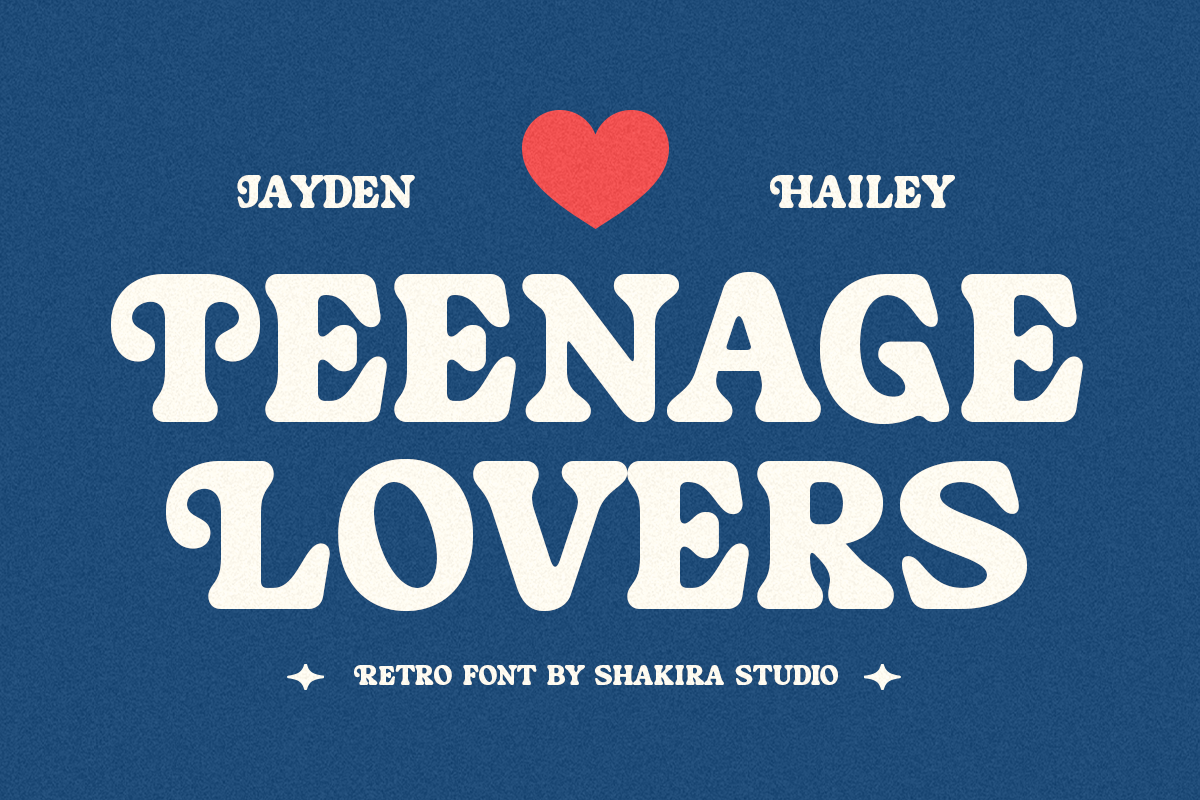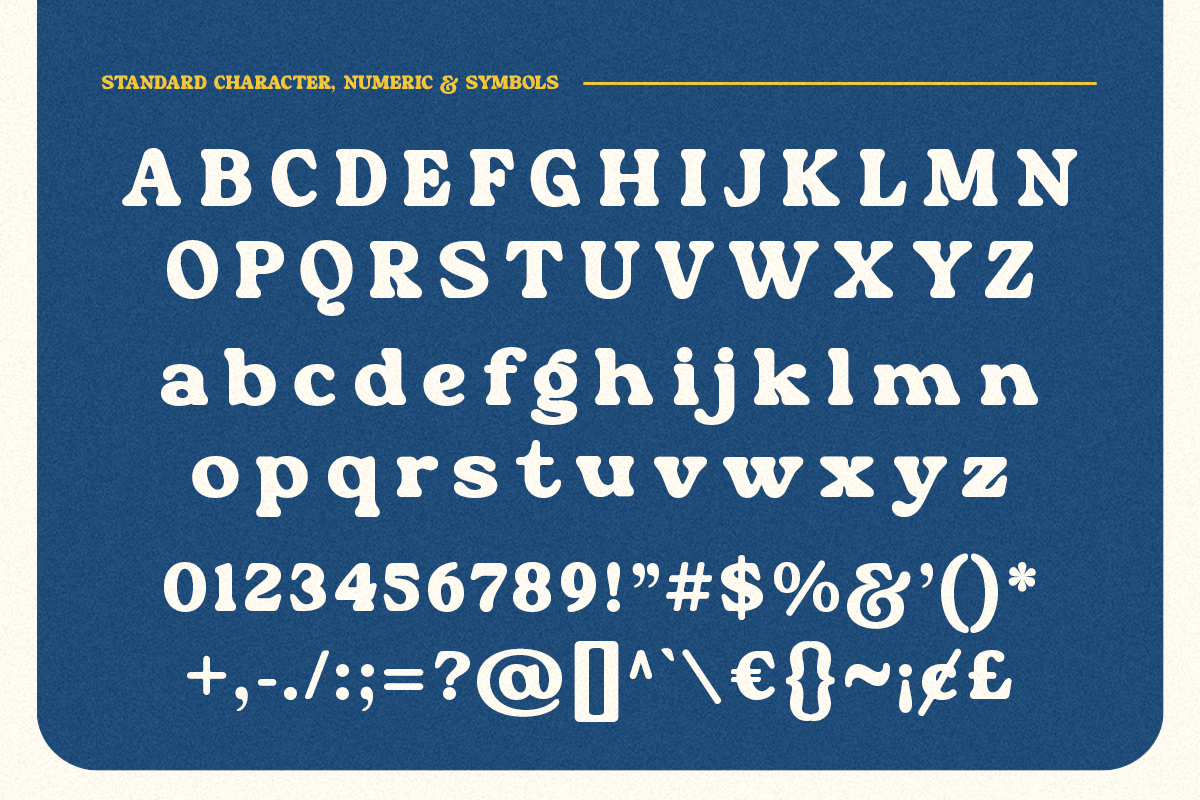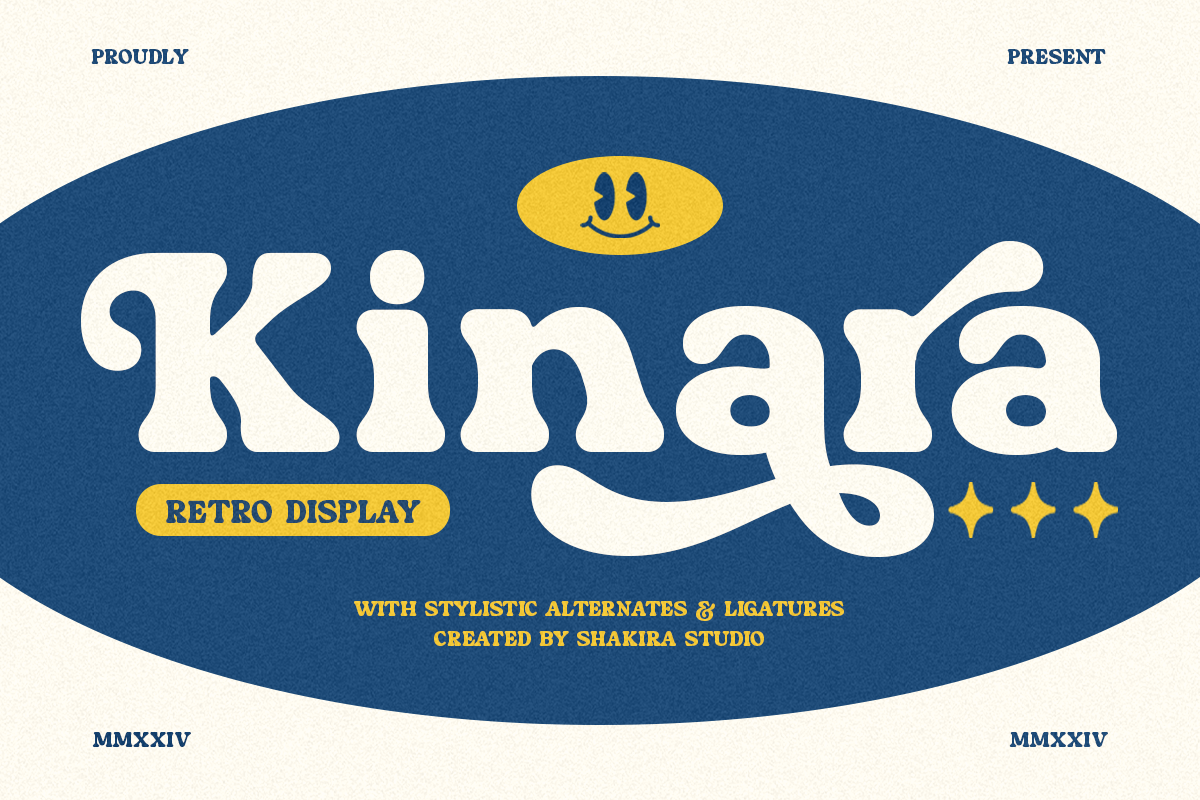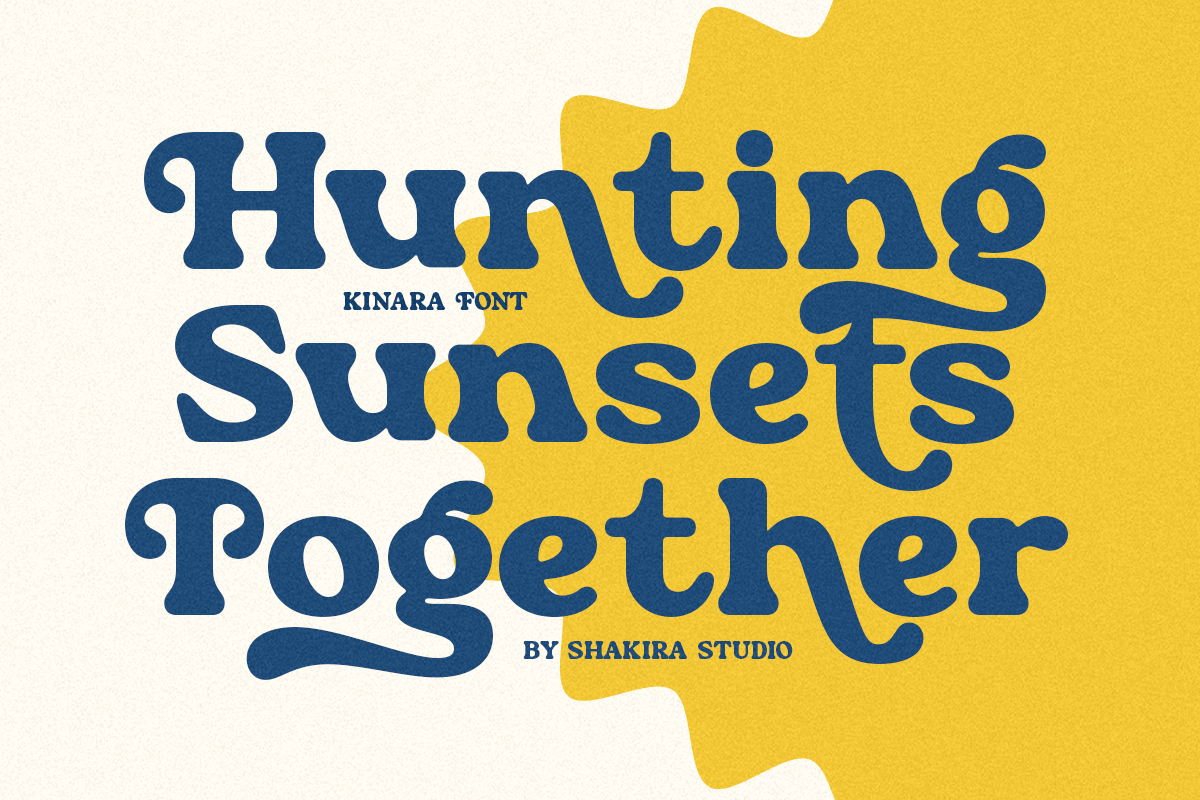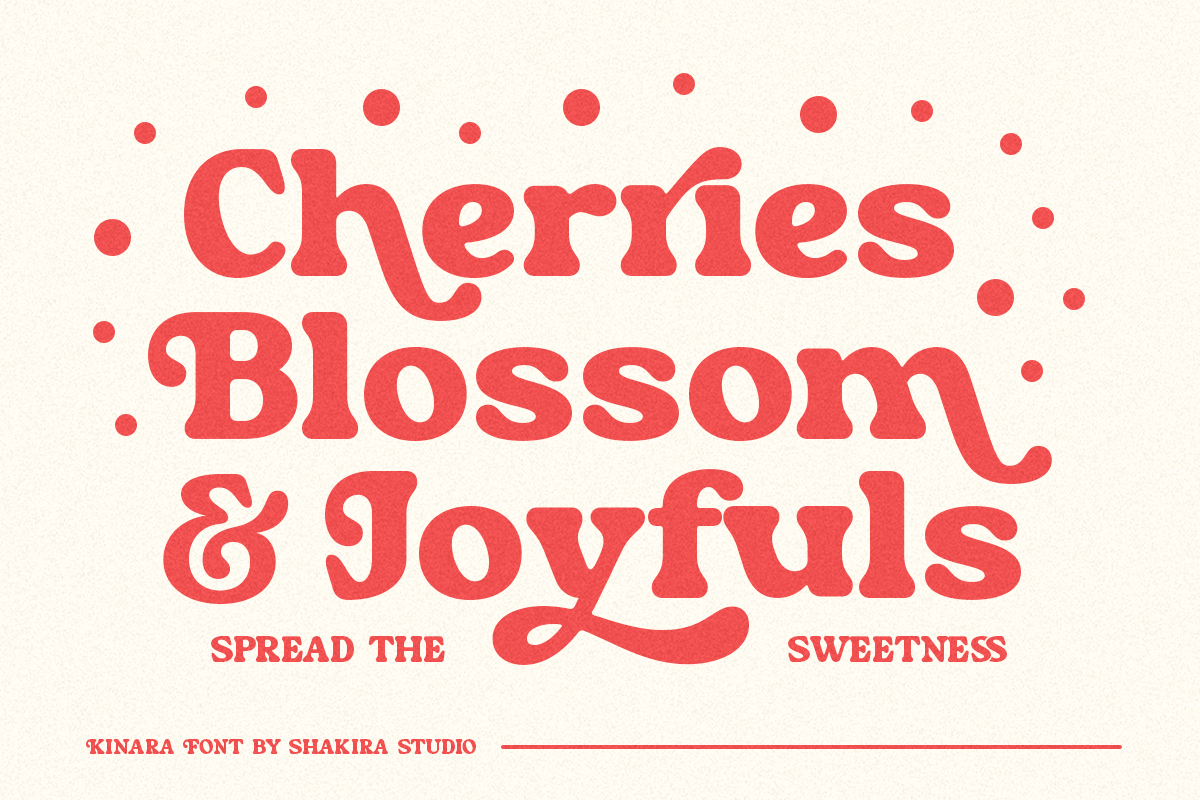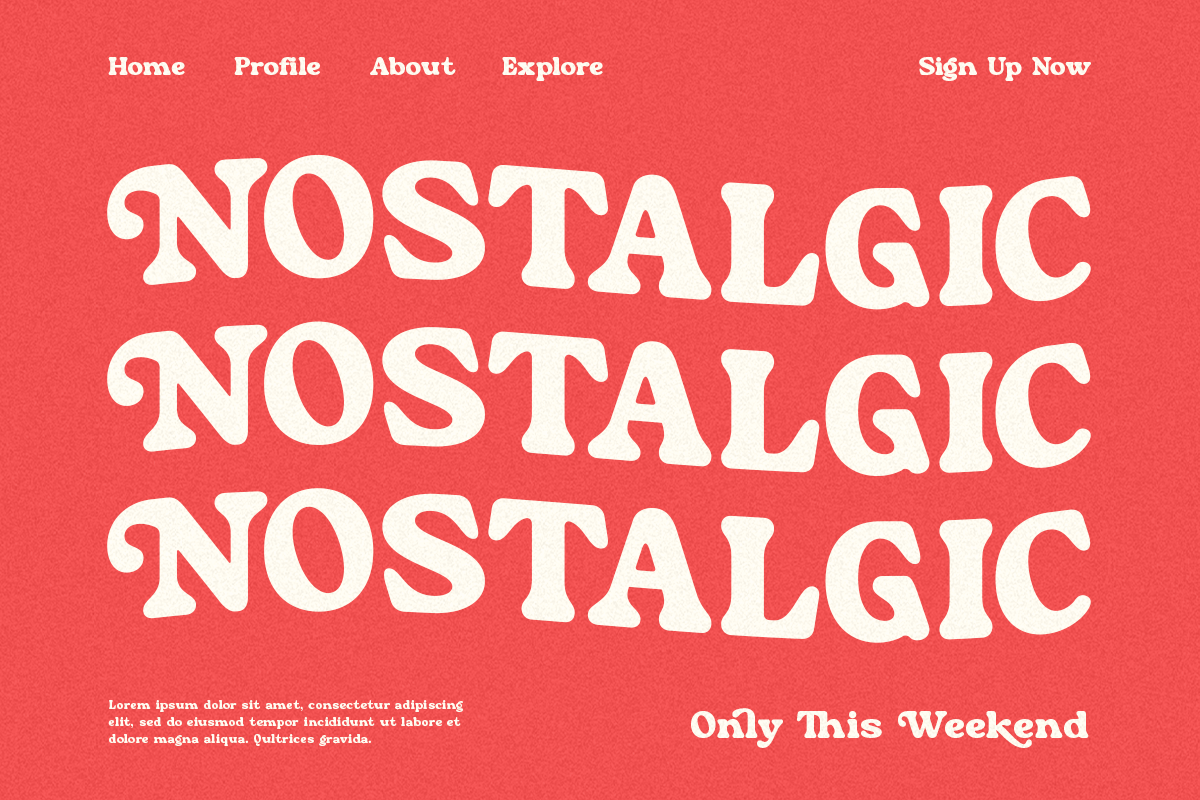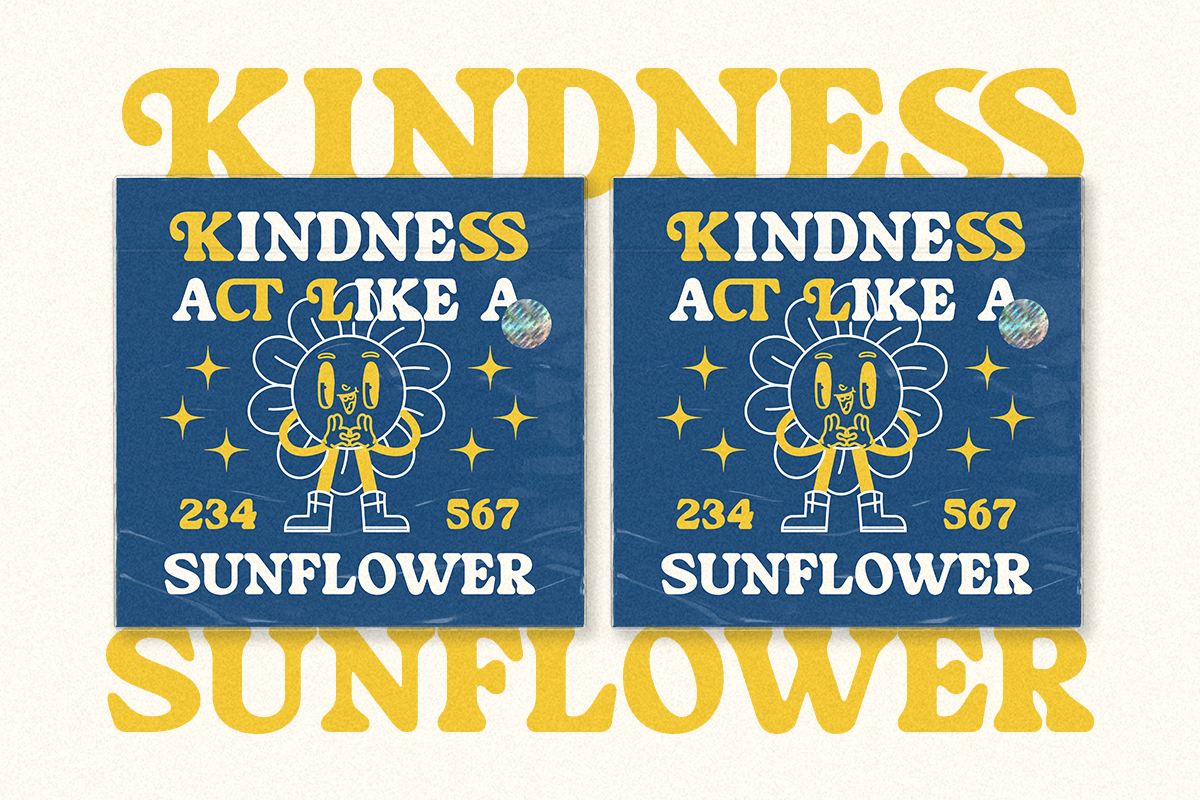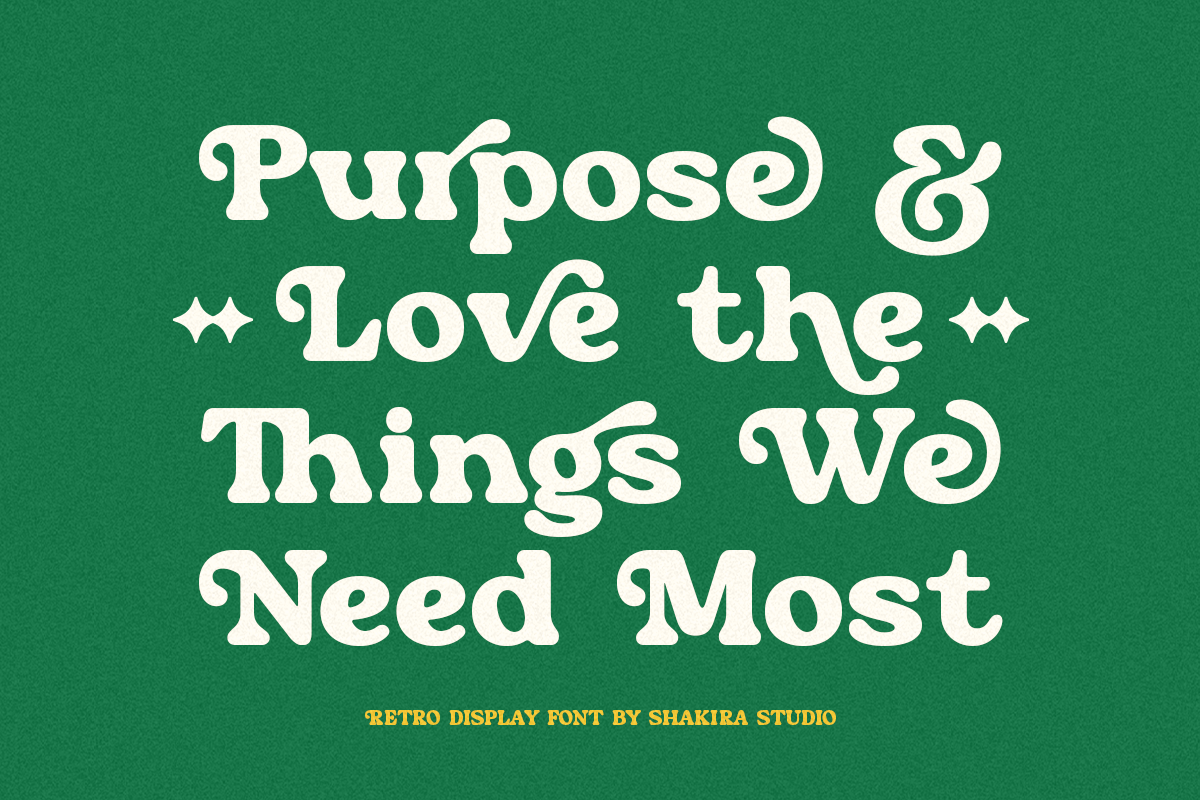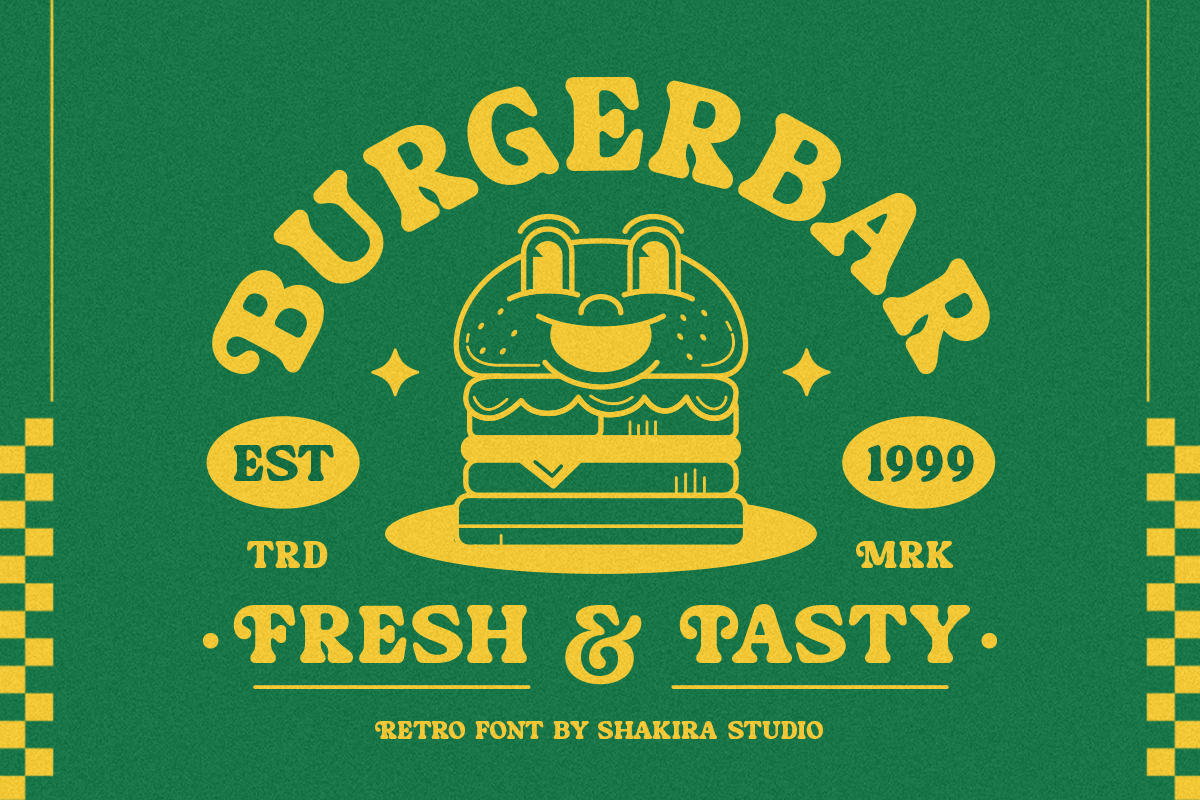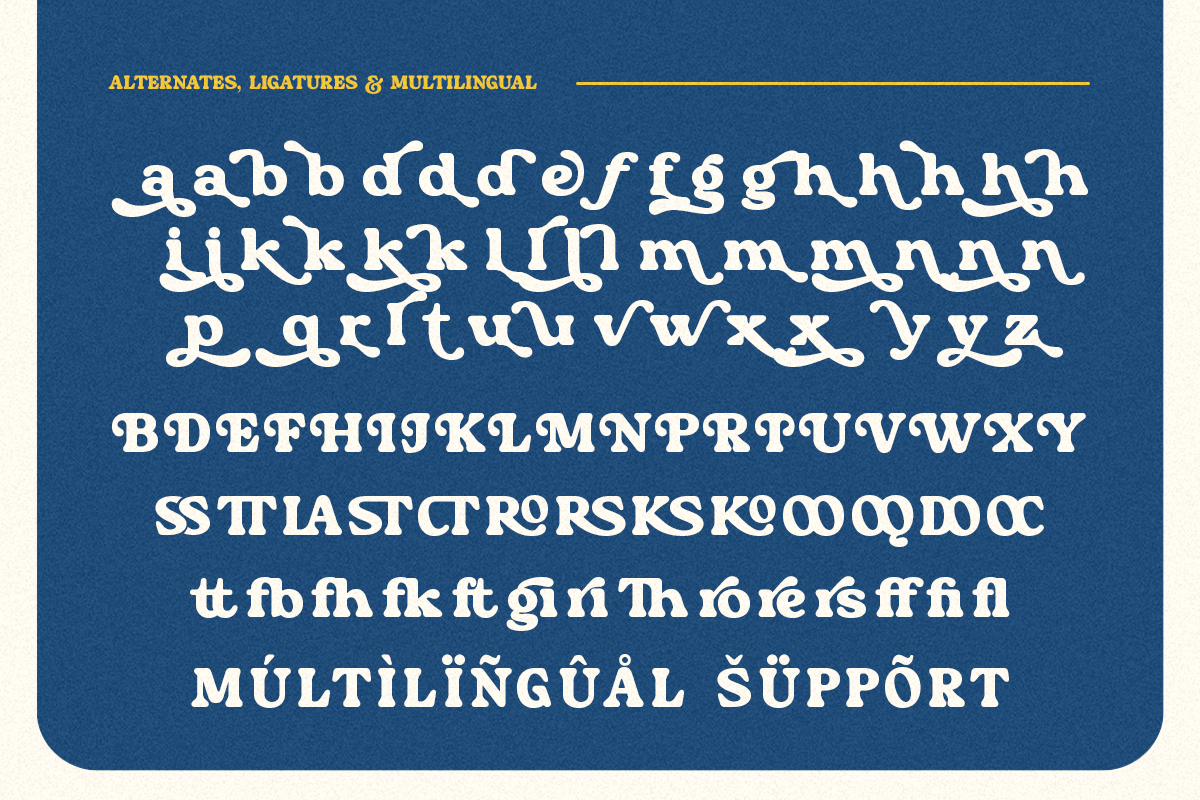
Kinara - Retro Serif Font
"Meet Kinara, a bold and nostalgic Retro Serif font that channels the playful charm of the past. Perfect for vintage-inspired designs, this typeface offers both regular and italic versions, making it versatile for a variety of creative projects. Complete with stylistic alternates and ligatures, Kinara is the ideal choice for adding a touch of retro flair to your branding, posters, and more."
- Regular & Italic
- All Multilingual symbol
- Opentype features ( ligature, alternate )
Multilingual character supports : (Afrikaans, Albanian, Catalan, Croatian, Czech, Danish, Dutch, English, Estonian, Finnish, French, German, Hungarian, Icelandic, Italian, Lithuanian, Maltese, Norwegian, Polish, Portuguese, Slovenian, Spanish, Swedish, Turkish, Zulu)